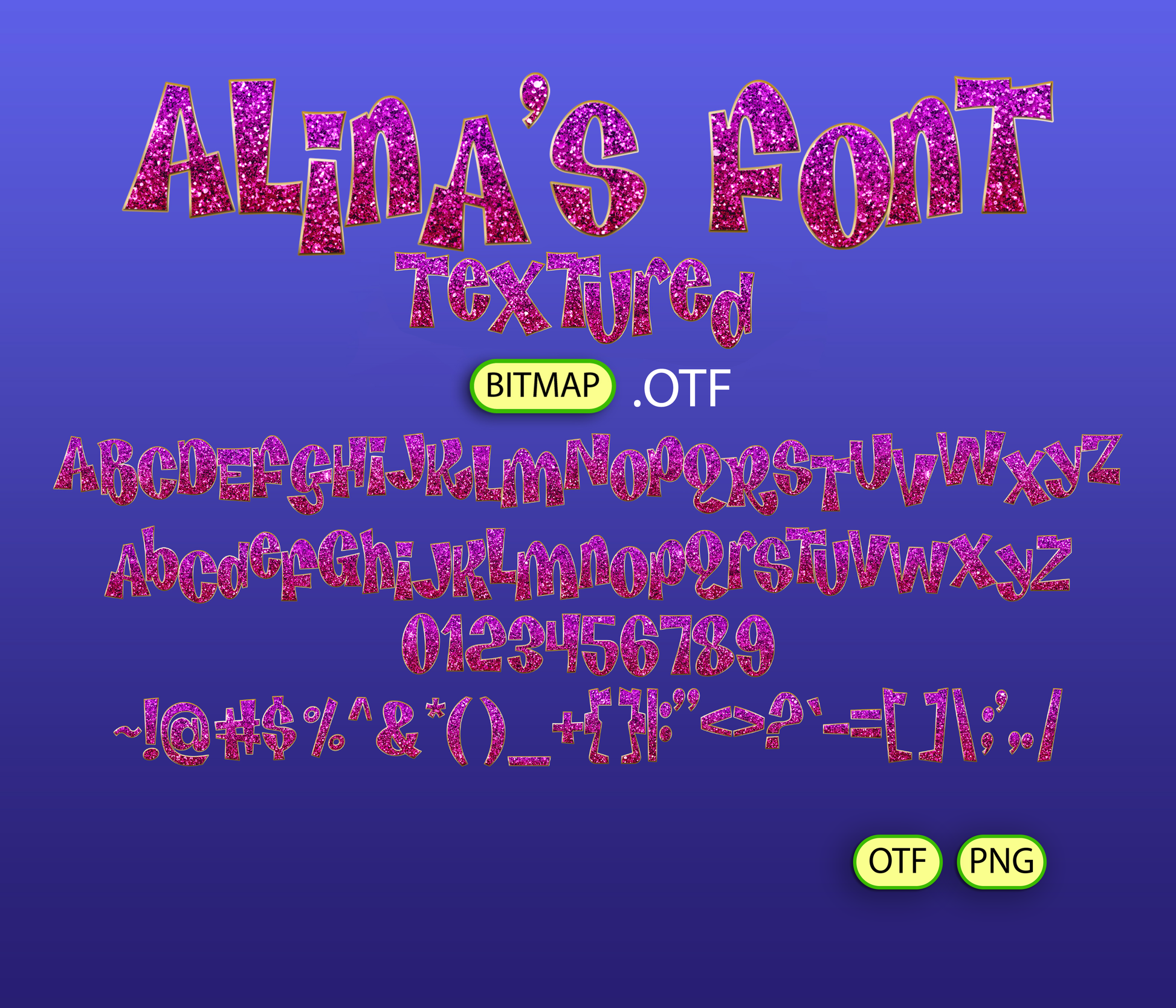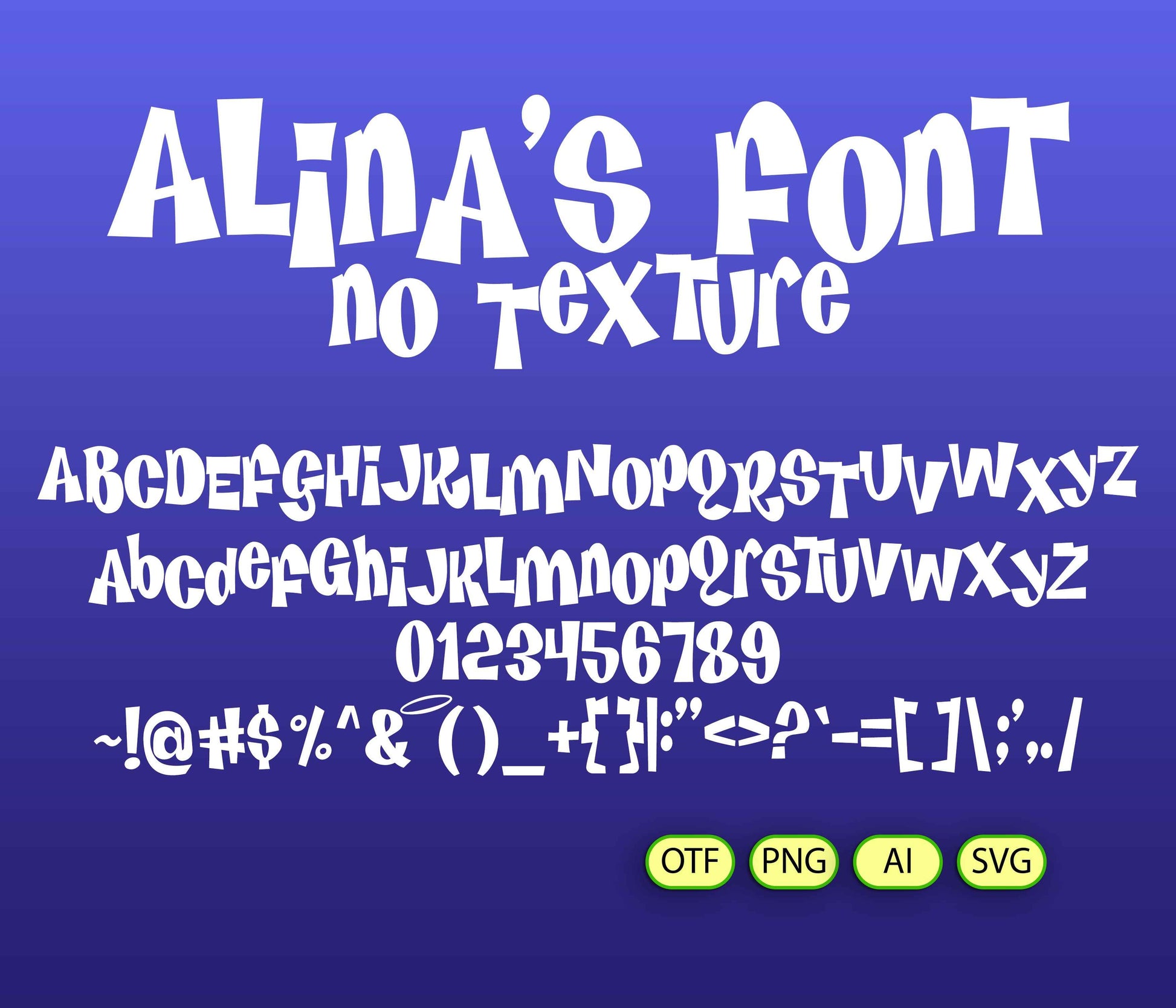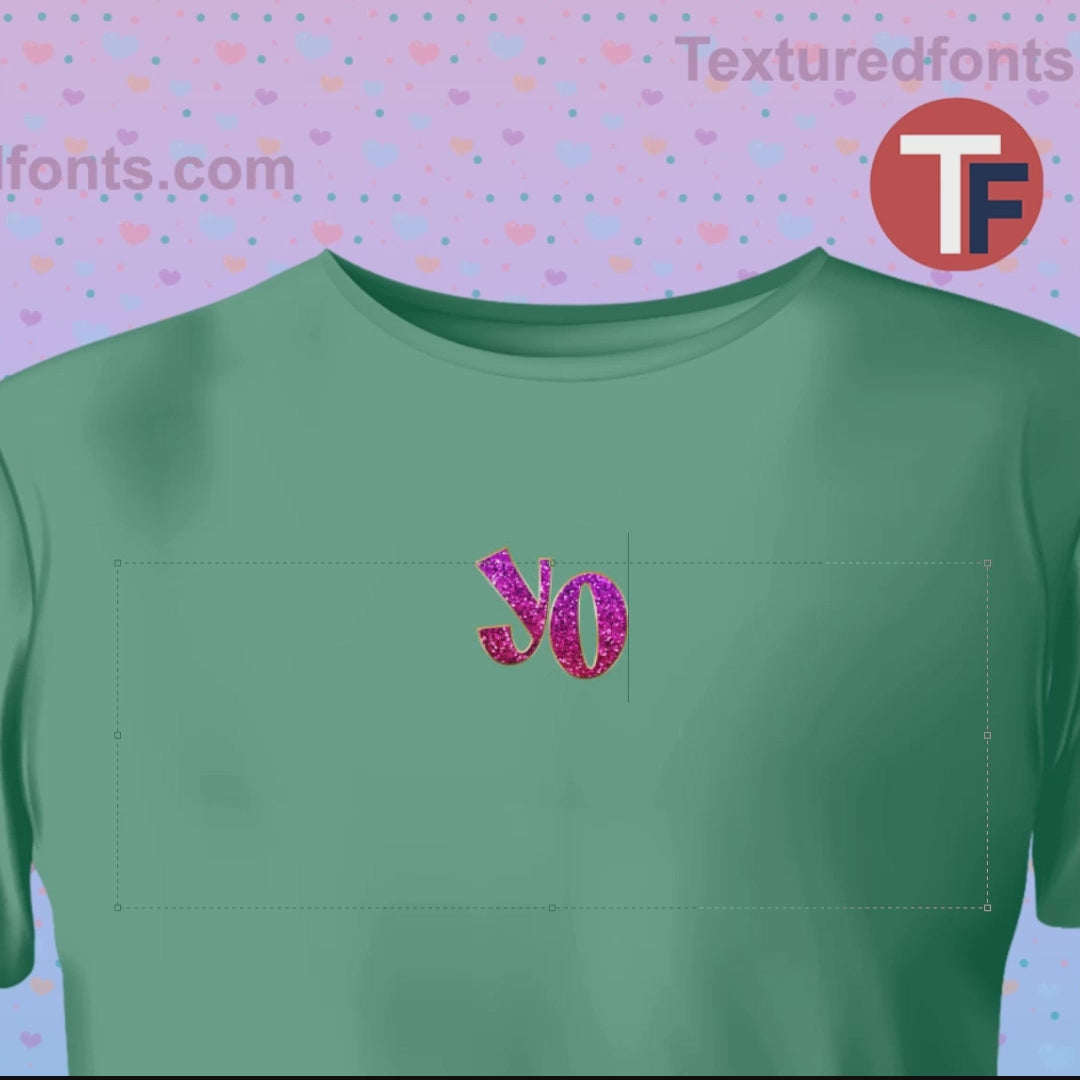
Y2K Fashionistas Glitter Font Textured
Embrace the Bold Style of the Y2K Fashionistas Font
Dive into the stylish world of Y2K fashion with our exclusive font, crafted to capture the bold, chic essence of iconic characters. Perfect for fans and creators, this font lets you make a statement that mirrors the Y2K fashion-forward vibe, ensuring your designs stand out with confidence and flair.
Versatile Applications and Customization
This font is not just for show; it's a versatile tool for a wide range of creative projects:
- Apparel and Accessories: Design custom clothing and accessories.
- Event Supplies: Create themed party invitations and decor.
- Digital and Print Media: Enhance digital content and printable materials.
- Home Decor: Craft unique decorations like wall decals and cushions.
With our Y2K Fashionistas font, step into a world of style and creativity. Whether for personal use or commercial designs, this font brings the daring spirit of Y2K fashion to your projects, ensuring they sparkle with glamour and sass.